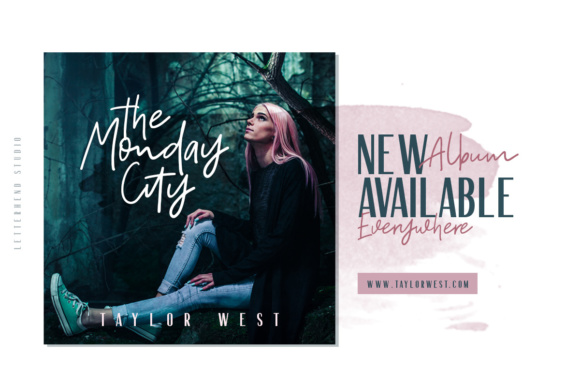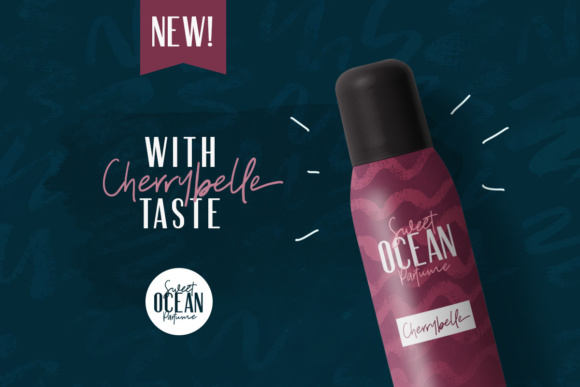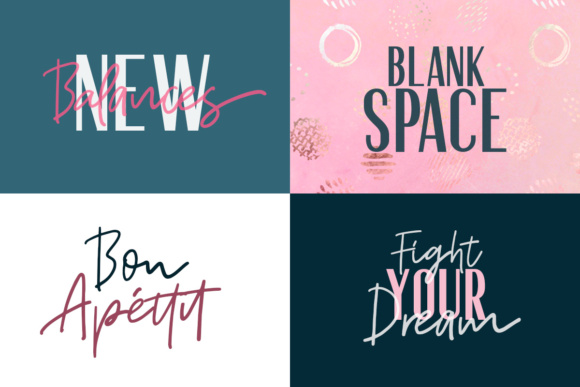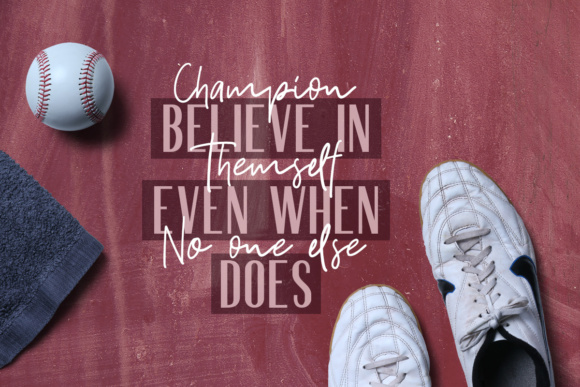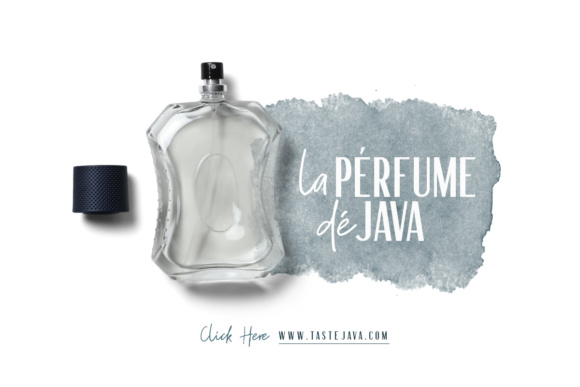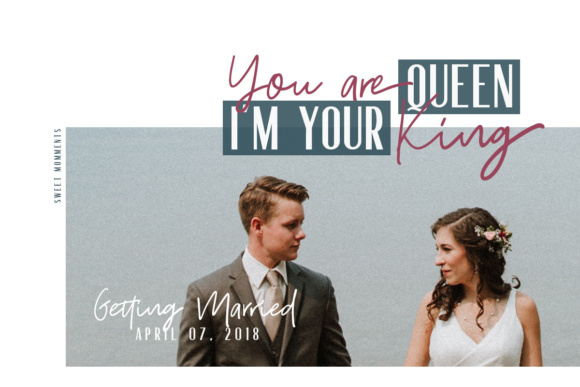
Discover the Elegance of Fort Collins Font: Elevate Your Design with Class and Casual Charm
When it comes to selecting the perfect font for your design project, the choices can be overwhelming. However, if you’re looking for a typeface that seamlessly blends classiness with a casual vibe, look no further than the Fort Collins Font. This exquisite font combination is designed to give your projects a sophisticated yet approachable feel, making it an ideal choice for a wide range of applications.
The Perfect Blend: Condensed Sans and Natural Handwriting Script
The Fort Collins Font boasts a unique combination of a condensed sans serif and a natural handwriting script. This pairing creates a visually appealing contrast that can instantly elevate your designs. The condensed sans serif offers a sleek, modern look that is perfect for headlines and titles, providing clarity and readability even at smaller sizes. On the other hand, the natural handwriting script adds a personal touch, bringing warmth and character to your text.
One of the standout features of the Fort Collins Font is its versatility. Whether you’re working on a logo, an invitation, an advertisement, or any other design project, this font combination is up to the task. The elegance of the condensed sans paired with the casual flair of the handwriting script makes it suitable for a variety of design needs. For instance:
- Logos: Create a memorable brand logo that stands out with its unique blend of modern and personal elements.
- Invitations: Add a touch of class and warmth to your event invitations, making them truly special.
- Advertising: Capture your audience’s attention with headlines and slogans that exude both sophistication and approachability.
- Headlines: Elevate your articles, blog posts, and website content with stylish headlines that draw readers in.
Why Choose Fort Collins Font?
With so many fonts available, why should you choose Fort Collins Font for your projects? Here are a few compelling reasons:
- Unique Aesthetic: The combination of condensed sans and handwriting script offers a distinctive look that can set your designs apart.
- High Readability: The clarity of the sans serif component ensures that your text remains readable, even at smaller sizes or from a distance.
- Emotional Connection: The handwriting script element adds a personal touch, helping to create an emotional connection with your audience.
- Time-Saving: Having two complementary fonts in one package saves you time and effort in searching for the perfect pairing.
Tips for Using Fort Collins Font Effectively
To make the most out of the Fort Collins Font, consider the following tips:
- Mix and Match: Use the condensed sans for headlines and the handwriting script for body text or quotes to create visual interest.
- Play with Sizes: Experiment with different font sizes to emphasize certain parts of your text and create a hierarchy of information.
- Color Matters: Choose colors that complement the tone of your design. The Fort Collins Font works well with both bright and muted color palettes.
In conclusion, the Fort Collins Font is a powerful tool for designers and crafters looking to add a touch of class and casual charm to their projects. Its unique combination of condensed sans and natural handwriting script offers versatility, readability, and a distinctive aesthetic that can elevate a wide range of design applications. Whether you’re creating logos, invitations, advertisements, or more, this font pairing is sure to leave a lasting impression.